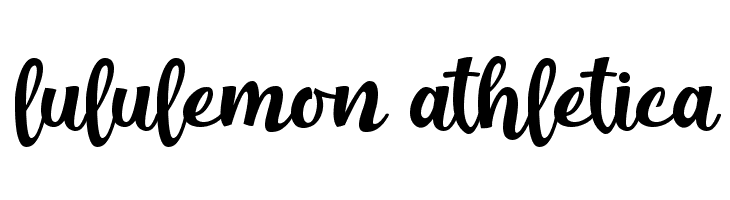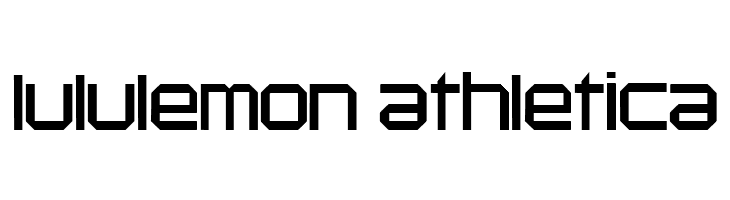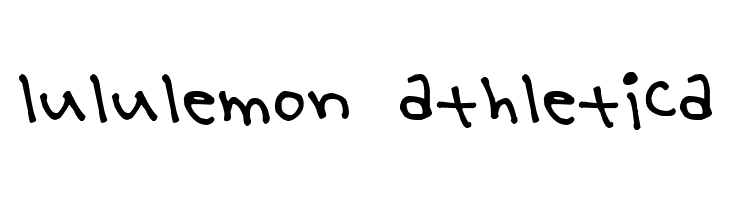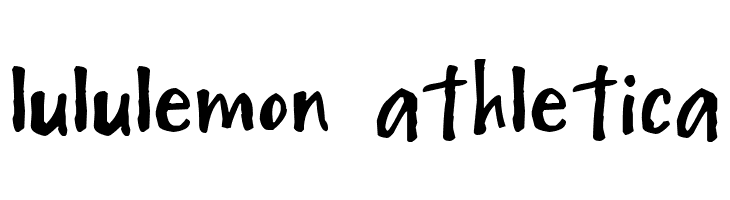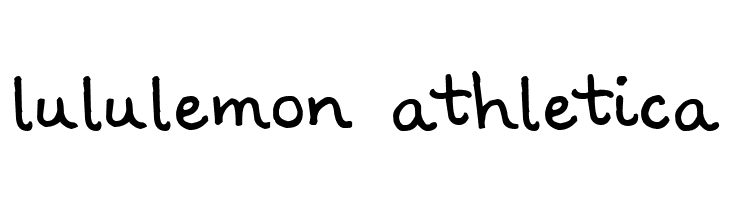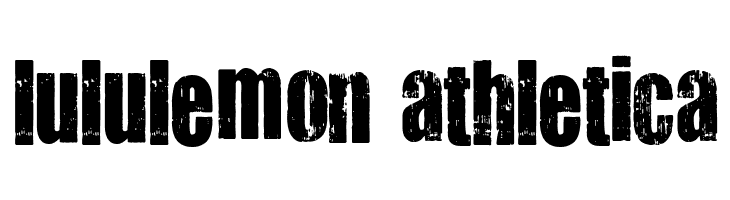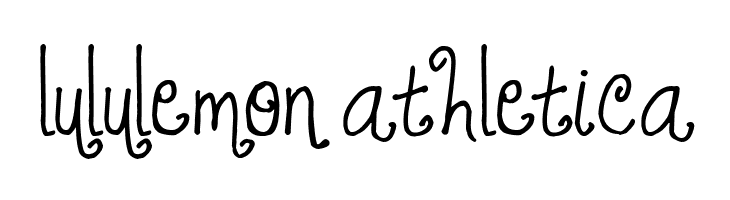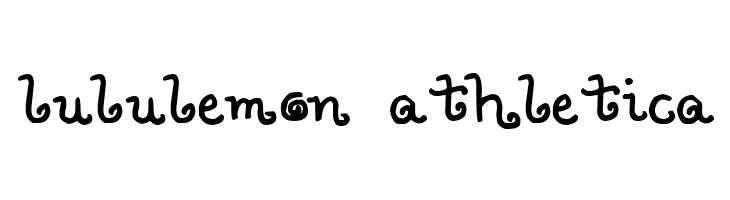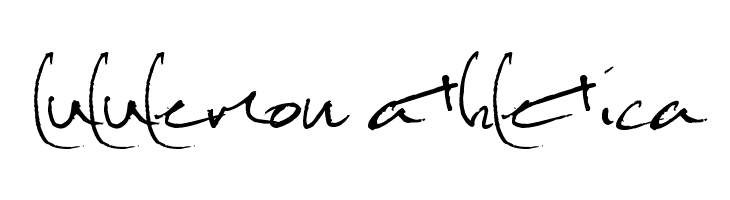
A bold, geometric font with a modern, futuristic style.
A bold, geometric font with a futuristic and digital aesthetic.
A dynamic and expressive handwritten font with fluid strokes.
A whimsical and curly font with playful swirls and embellishments.
A playful, curly font with whimsical loops and swirls.
A bold, playful handwritten font with energetic strokes.
A playful, hand-drawn font with a casual and friendly appearance.
A playful, informal handwritten font with irregular, marker-like strokes.
A bold, distressed font with a rugged, vintage feel.
A bold, flowing script font with elegant curves and modern sophistication.